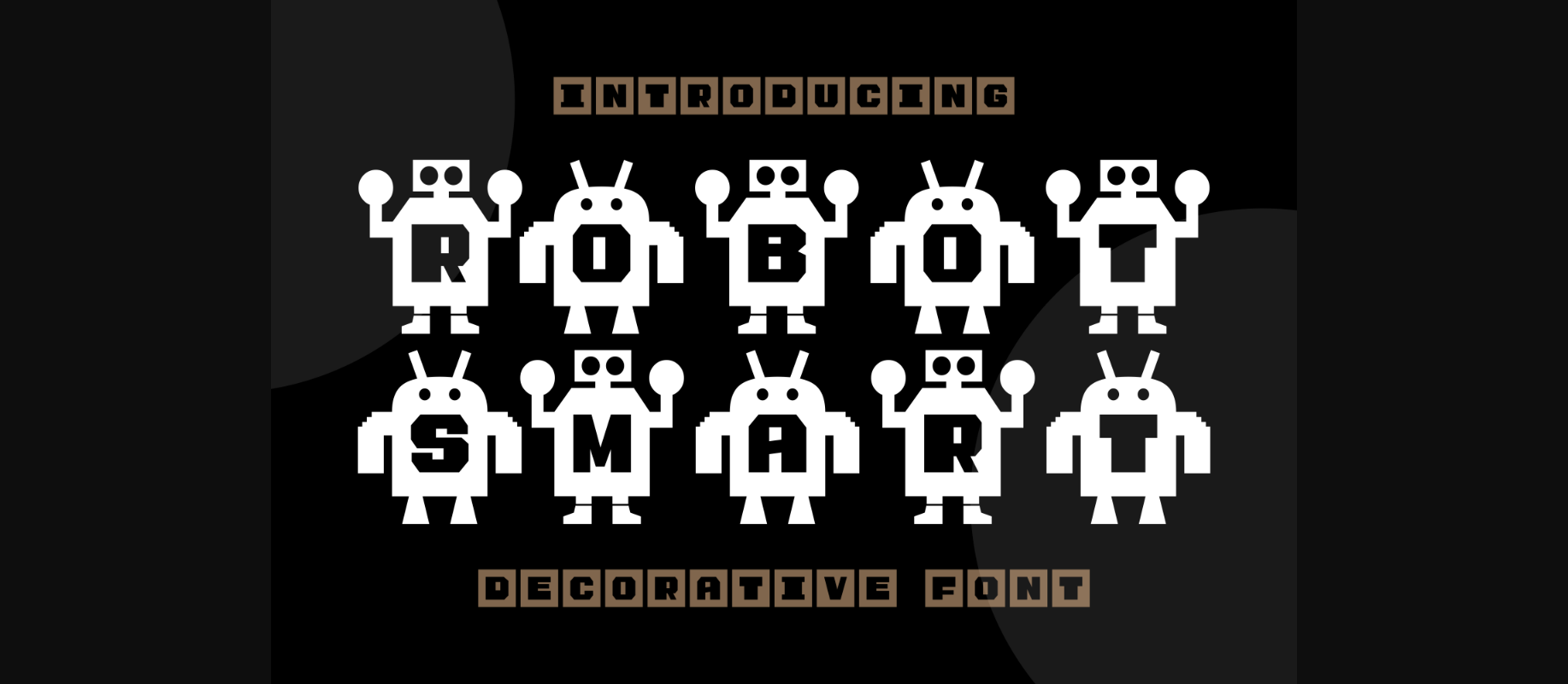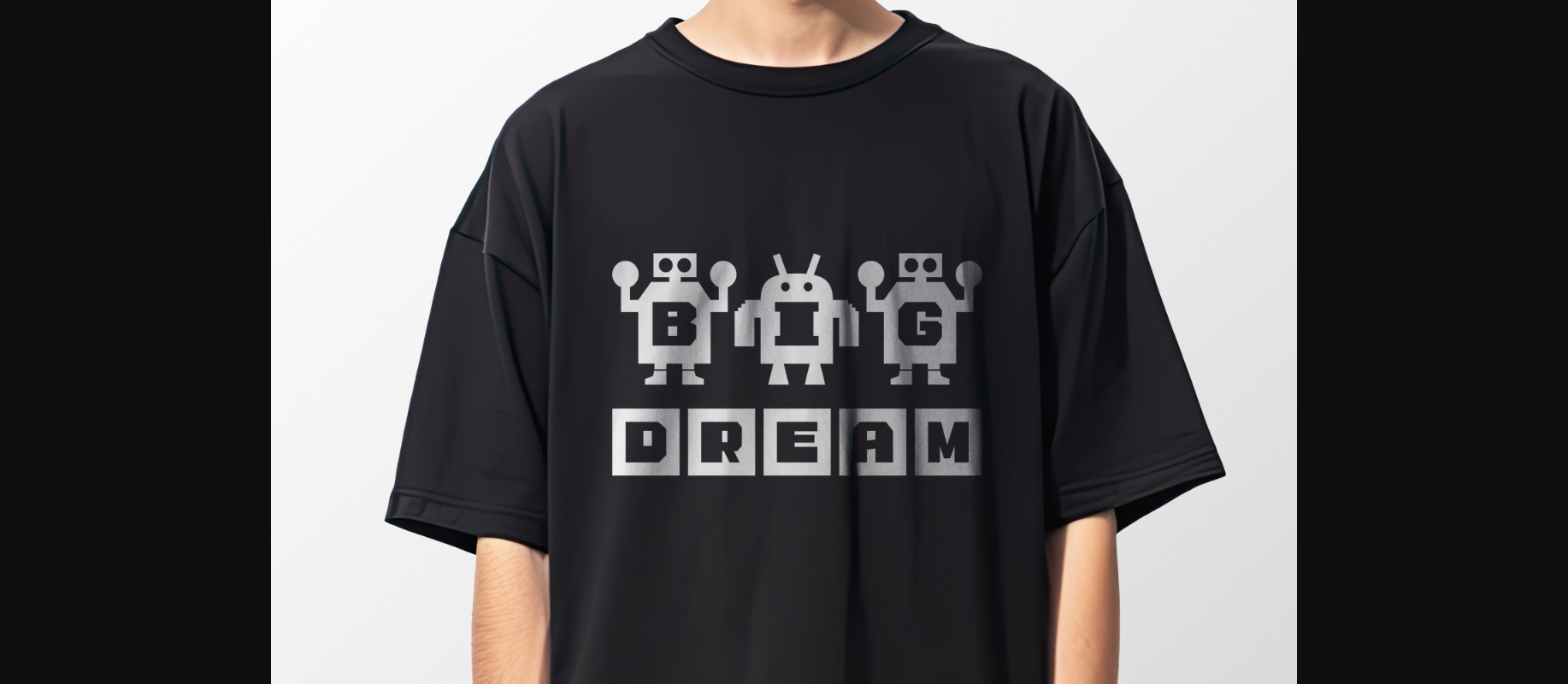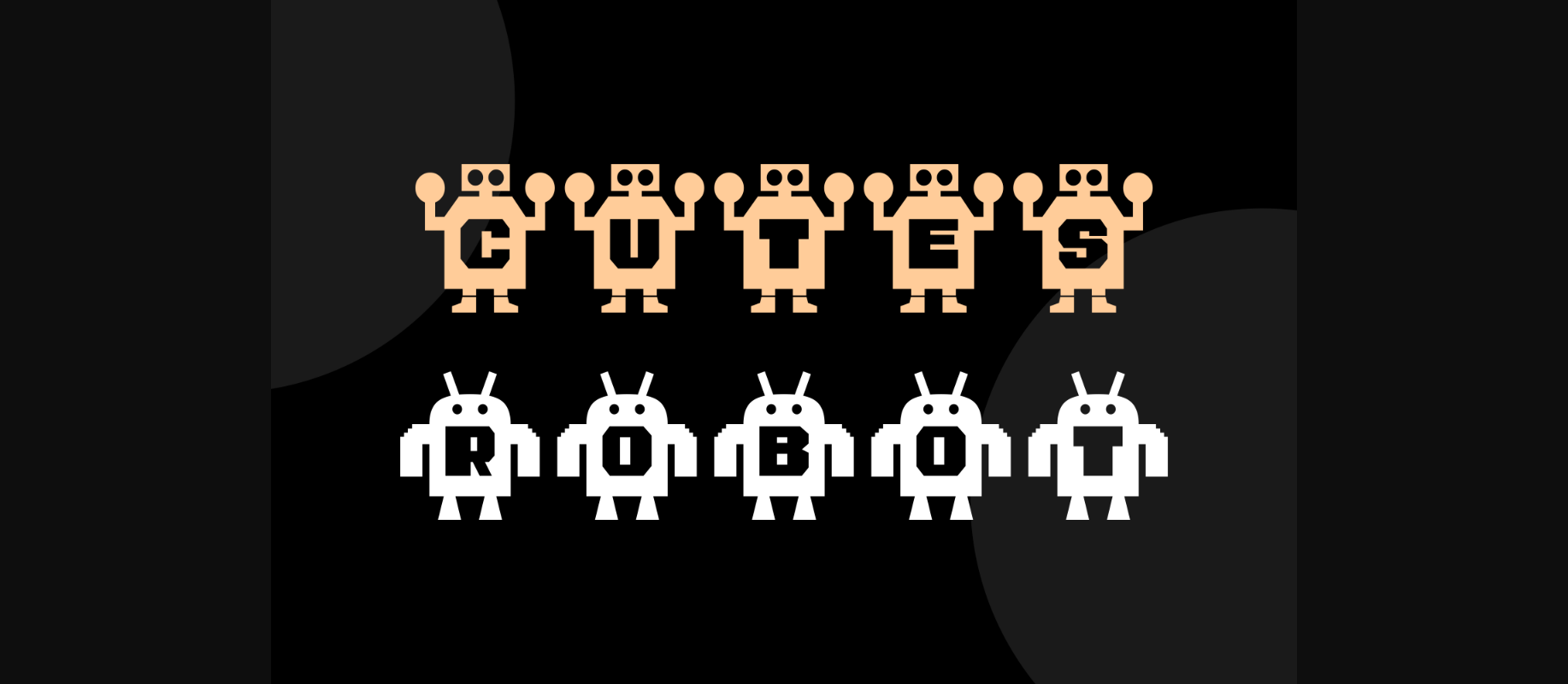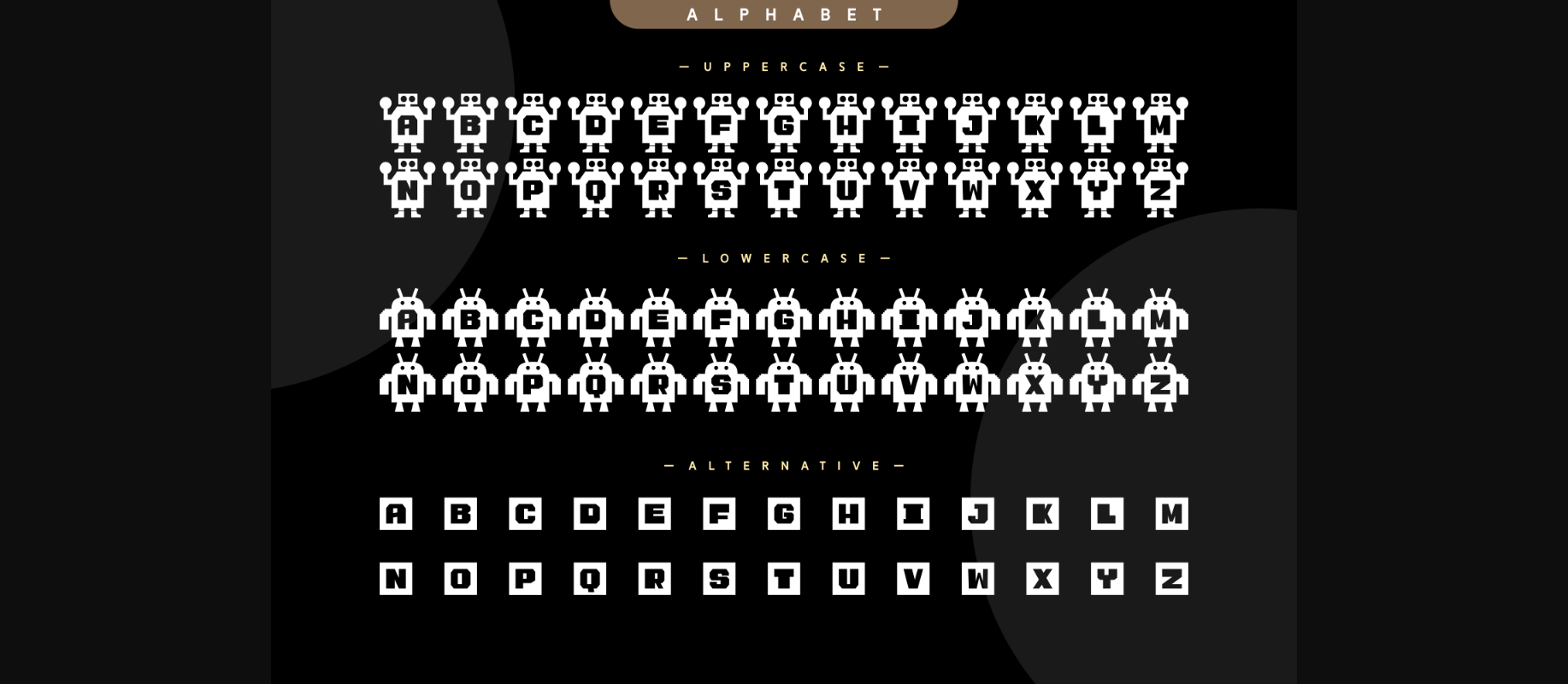
Robot Smart Font
About Robot Smart Font
Meet “Robot Smart,” a decorative font where each letter is crafted with a touch of futuristic charm. This whimsical typeface seamlessly blends technology and creativity, making it perfect for projects that demand a modern and playful aesthetic. Whether you’re designing for a tech event, children’s book, or anything in between, Robot Smart adds a delightful robotic flair to your letters, giving your text a uniquely smart and innovative vibe.